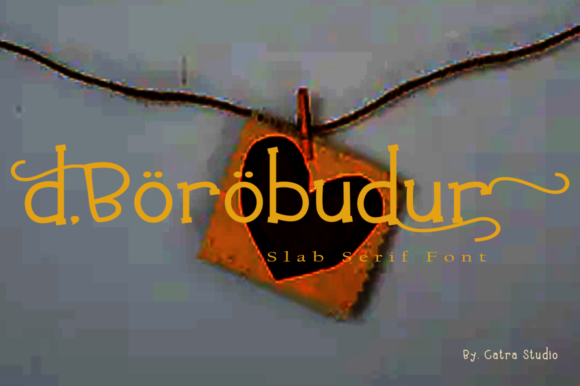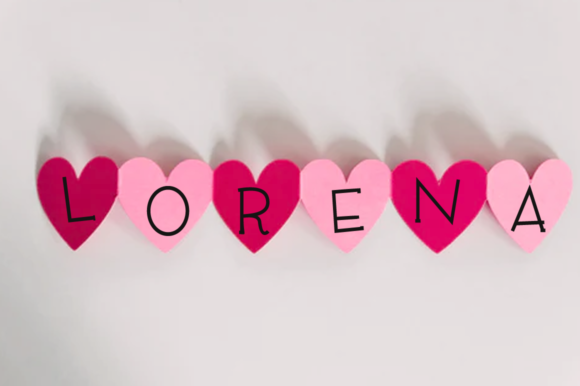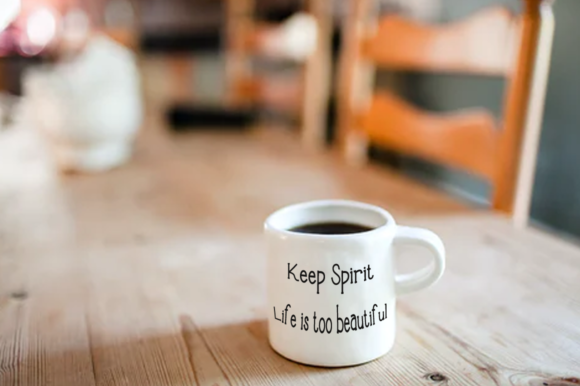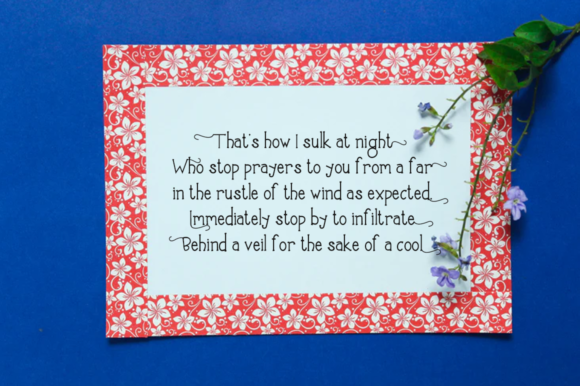
D’Borobudur: A Cool and Unique Slab Serif Font
D’Borobudur is a distinctive slab serif font that combines coolness with unique design elements. This versatile typeface offers designers a powerful tool for creating impactful typography across a wide range of creative projects.
Key Features of D’Borobudur
- Cool Design: Features a trendy and appealing appearance
- Unique Character: Offers distinctive traits that set it apart from other slab serifs
- Slab Serif Structure: Maintains the characteristic thick, rectangular serifs typical of slab serif fonts
- Versatile Application: Suitable for various design contexts
- Touch of Beauty: Adds an aesthetic charm to any creation
Ideal Uses for D’Borobudur
D’Borobudur’s unique characteristics make it particularly well-suited for:
- Cartoon-related designs
- Children’s games and products
- Quote designs
- Titles and headlines
- Brand names and logos
- Book covers
- Poster designs
When incorporating D’Borobudur into your designs, consider the following tips:
- Use for headlines or short blocks of text to showcase its unique character
- Experiment with different sizes to highlight the font’s cool details
- Consider pairing with simpler sans-serif fonts for body text to create contrast
- Take advantage of its versatility across various project types
D’Borobudur is an excellent choice for designers looking to add a cool and unique slab serif to their typographic toolkit. Its distinctive traits and versatility make it stand out in the world of typography. Whether you’re working on cartoon designs, creating layouts for children’s products, or developing branding that requires a touch of beauty, D’Borobudur offers the perfect blend of coolness and uniqueness.
Explore how D’Borobudur can bring a cool and unique edge to your design projects. From eye-catching book covers to memorable brand names, this font provides the tools to create impactful and beautiful typography that stands out in various creative contexts.